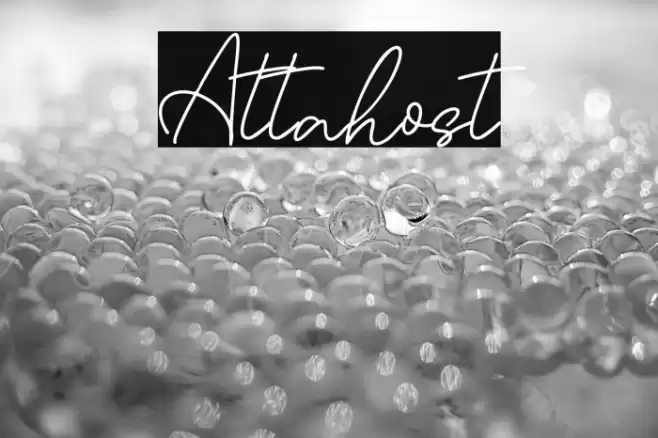
Attahost Font
Attahost Description
This font features an elegant, flowing script style that mimics natural handwriting with a modern twist. The uppercase letters are tall and slightly slanted, giving a sense of movement and grace. The lowercase letters are more compact, maintaining a consistent flow with connected strokes, which enhances readability while preserving its artistic flair. The overall design is characterized by smooth curves and a delicate touch, making it suitable for a variety of creative applications. The font's thin strokes and slight variations in line thickness add a subtle sophistication, perfect for conveying elegance and style.
A modern, elegant script font with flowing, connected strokes from Regular fonts.